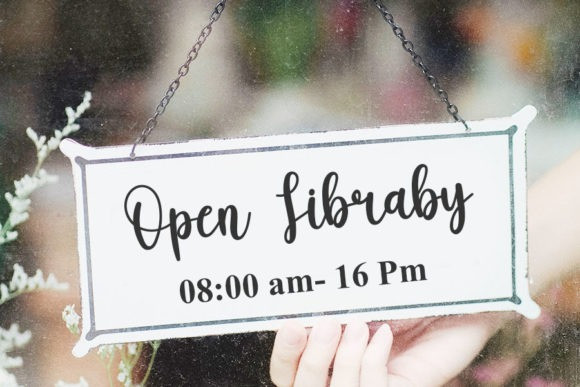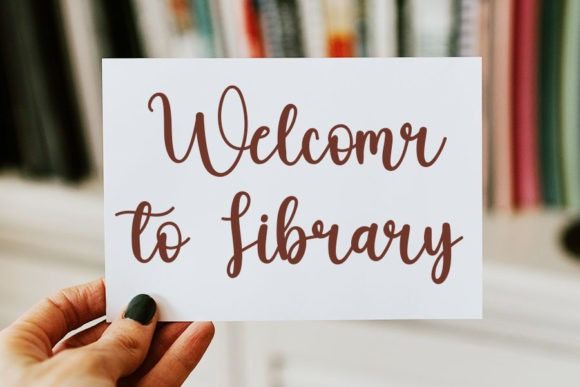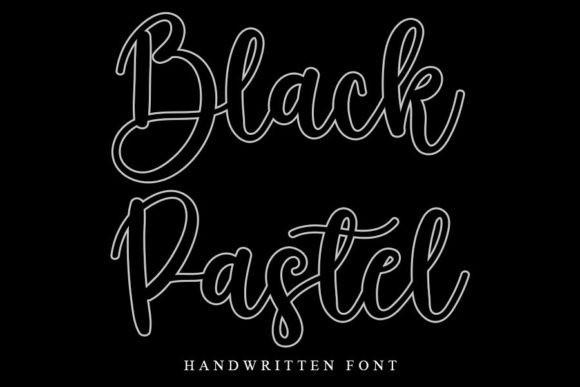
Black Pastel Font
Black Pastel Script Font is a lovely and delicate script handwritten font that exudes elegance and class. This font was particularly crafted for those who need a beautiful and refreshing look to their designs.